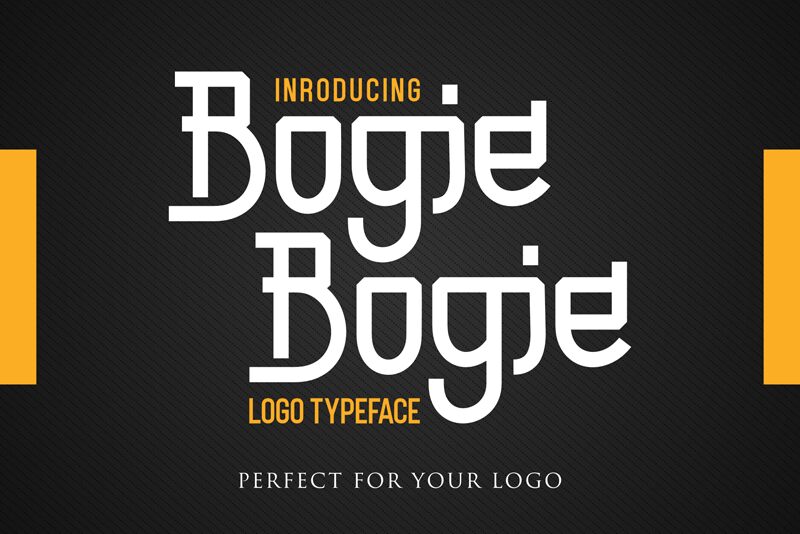
Bogie Bogie
Bogie Bogie is a captivating display font designed by DumadiStyle. With its semi-light weight and condensed width, this font adds a touch of elegance to any project. Ideal for headlines, logos, and branding materials, Bogie Bogie's unique style captures attention and leaves a lasting impression. Its sleek design makes it suitable for fashion blogs, magazines, or even tech companies looking for a modern edge. Whether you're looking to add sophistication to your print materials or create an eye-catching digital presence, Bogie Bogie is the perfect choice for your next project.